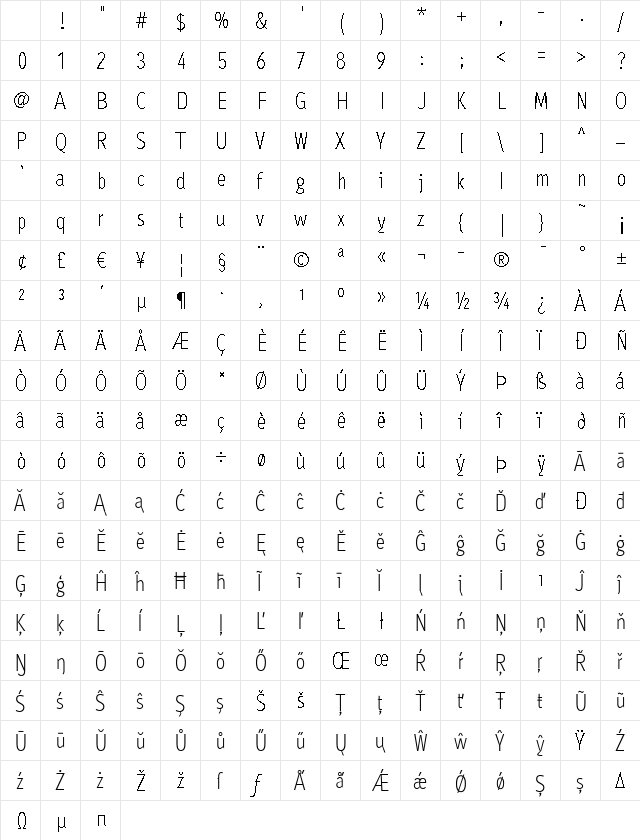
Complete Ayumi Pro Light glyph index. Displaying only characters natively supported by Ayumi Pro Light font.
Ayumi Pro is a composed and adaptable typeface that performs quietly and consistently across a wide range of design contexts. Its slender proportions lend an understated elegance to any composition.